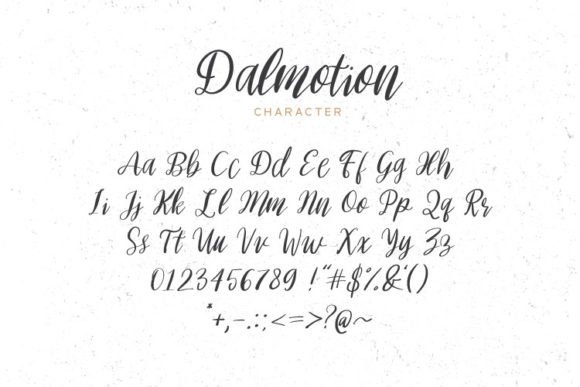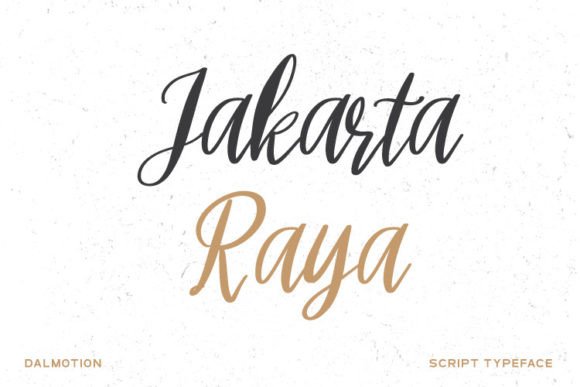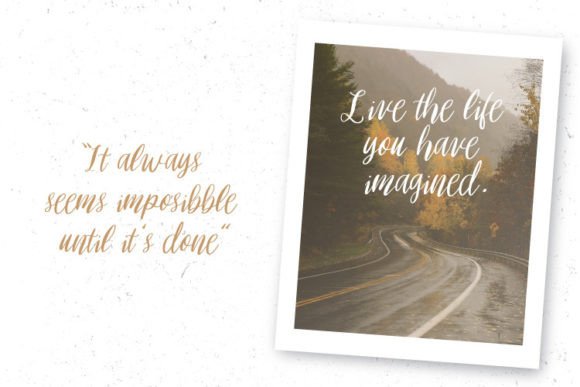
Introduction to Dalmotion Font
Dalmotion is a beautiful script font that features fun and quirky characters that look good in any design.
Add this font to your most creative ideas, and watch how it stands out .
Key Features of Dalmotion Font
Why Choose Dalmotion Font?
Dalmotion Font offers exceptional quality and versatility, making it a valuable addition to your design toolkit. Whether you’re creating for personal projects or commercial use, Dalmotion Font delivers professional results.